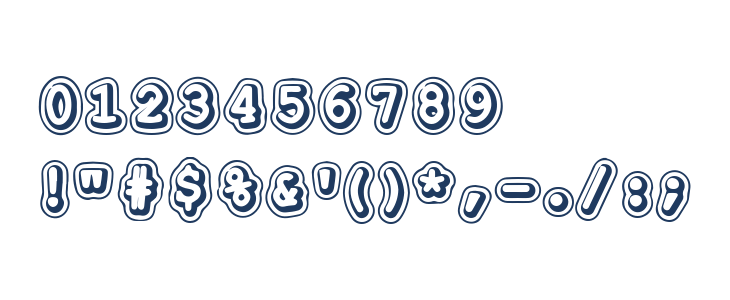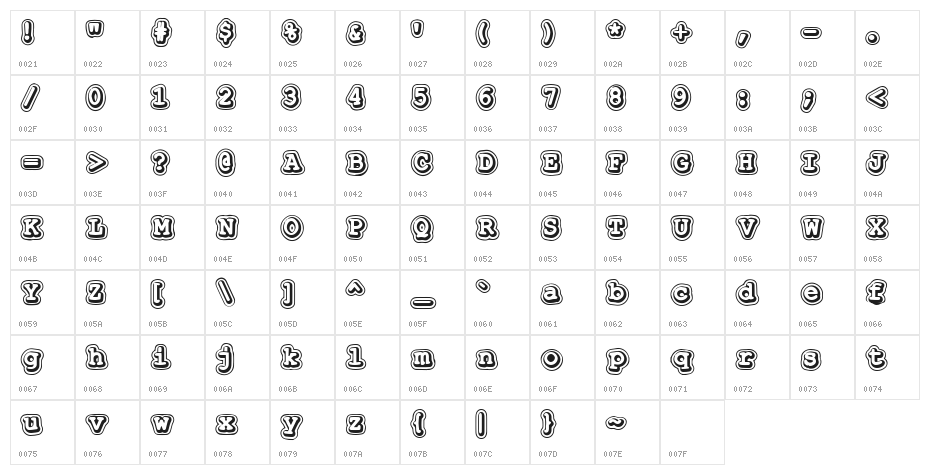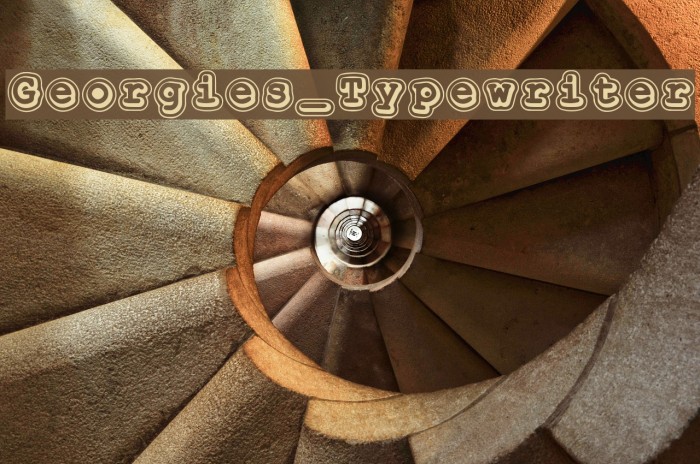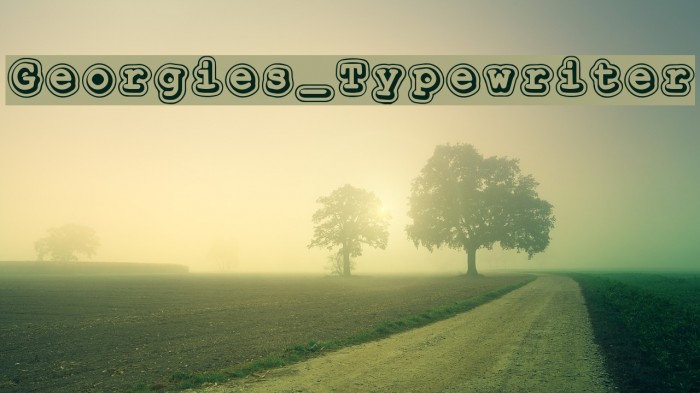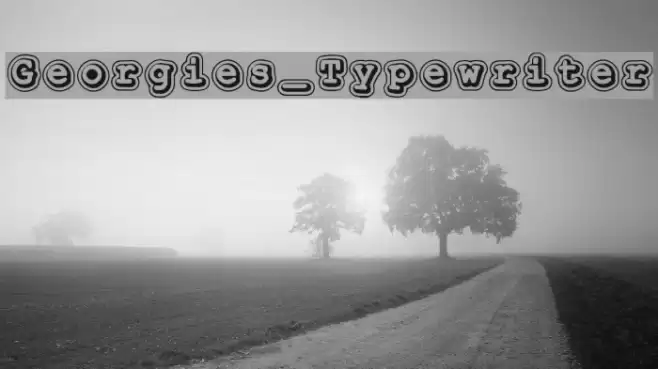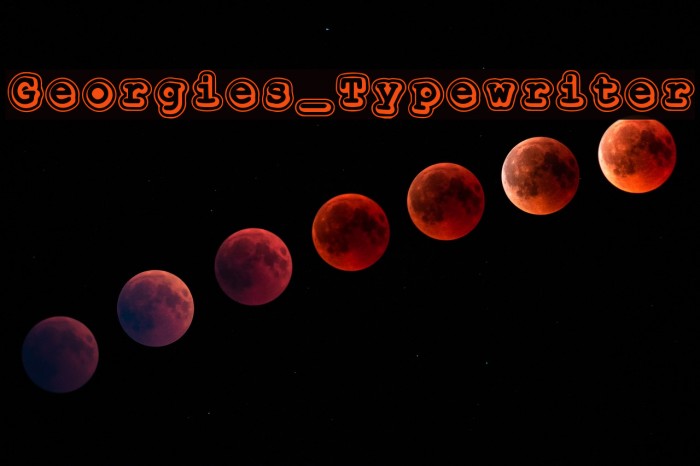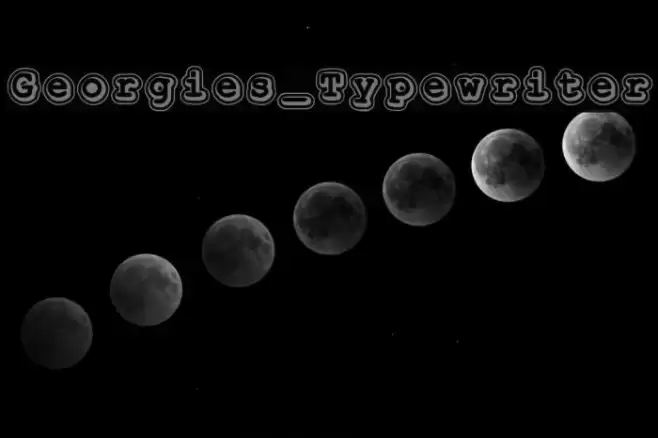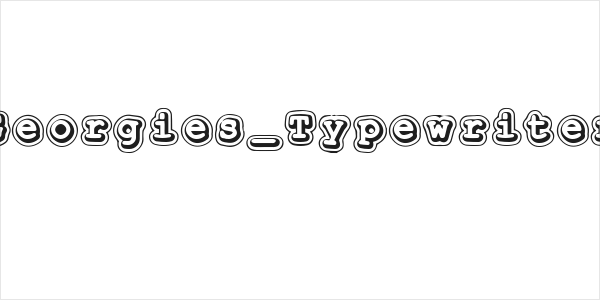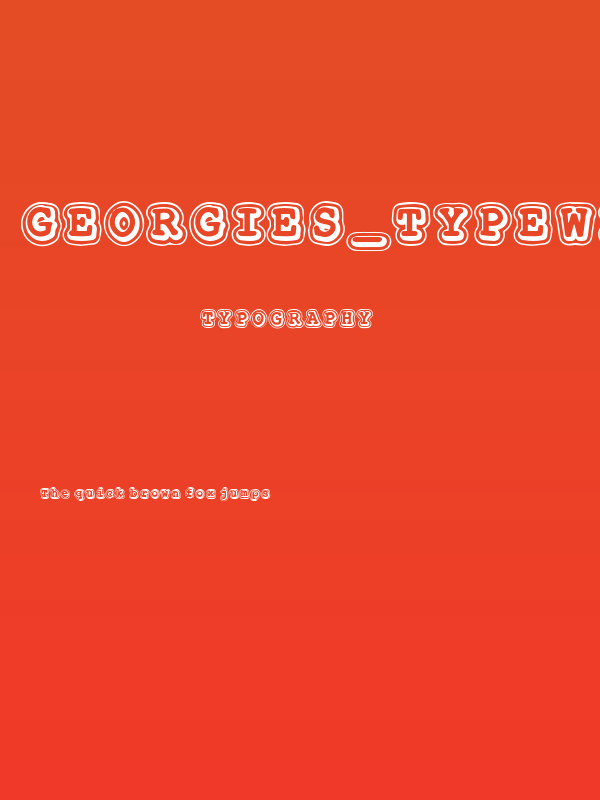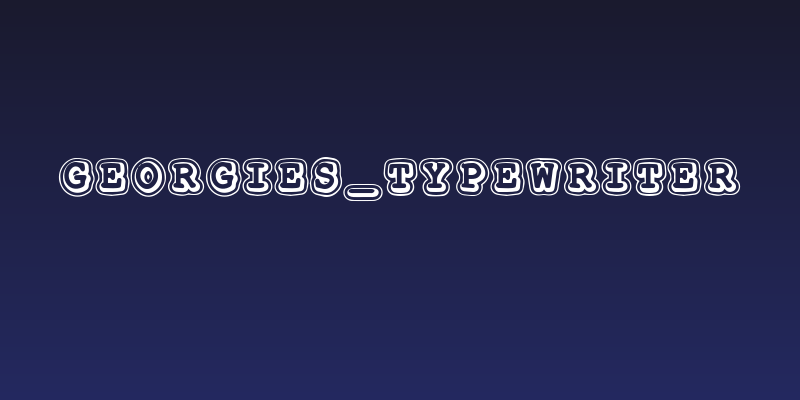
Georgies_Typewriter Font
Georgies_Typewriter Description
This font features a bold, playful style with a distinct outline around each character, giving it a three-dimensional effect. The letters are rounded and slightly condensed, creating a whimsical and approachable appearance. The font maintains a consistent weight throughout, with medium contrast between the thick outlines and the inner strokes. Its unique design makes it stand out, making it suitable for eye-catching displays and creative projects. The characters are evenly spaced, ensuring readability while maintaining its decorative charm.
| Overall Style | Playful, Decorative |
| Proposed Projects | Ideal for children's books, playful branding, posters, and creative digital content. |